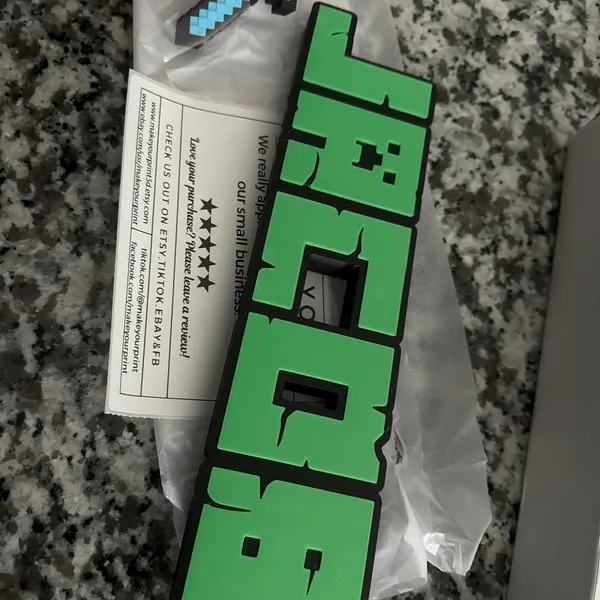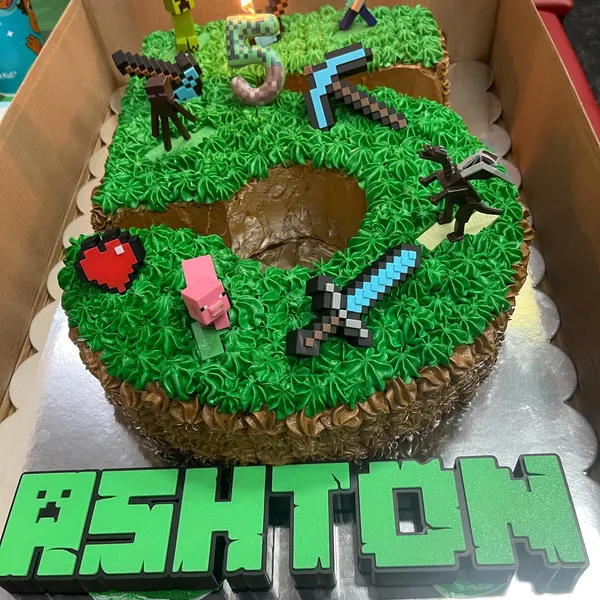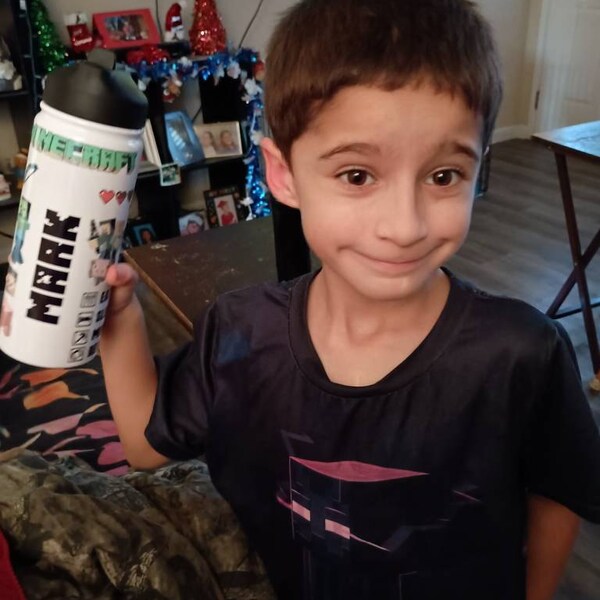
Minecraft Crafter’s Mega Bundle – Block Letters, Fonts & Icons for Shirts, Stickers & Party Decor
If your kids can’t stop talking about Minecraft, this is the pack that’s going to make you the coolest mom ever. 💚
The Minecraft Crafter’s Mega Bundle is packed with everything you need to create custom names, stickers, T-shirts, party decor, backpack labels, and more — all in that iconic blocky style kids love.
Inside this bundle:
• 🔤 Minecraft-Style Fonts – Perfect for custom names, party invites, and signs.
• 🧱 Block Letter Designs – Match the game’s pixel look with crisp, high-quality files.
• 🎒 Inventory & Icon Designs – Swords, hearts, blocks, tools, and more for school supplies, stickers, or decor.
• 🖼 Square Logo-Style Templates – Create your own Minecraft-inspired title for any project.
The Minecraft font is included!
💡 Crafty Ideas:
• Make your child’s name in Minecraft font for a custom T-shirt.
• Print stickers for water bottles, notebooks, or lunchboxes.
• Design party banners, cupcake toppers, or goody bag labels.
• Create matching decor for a Minecraft birthday party.